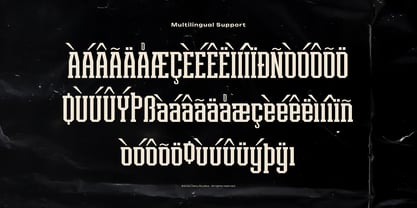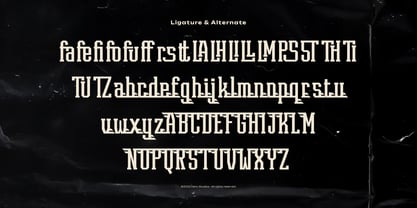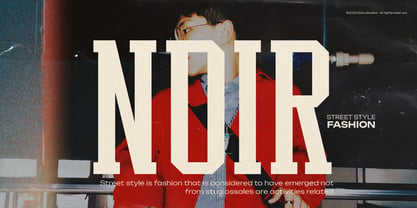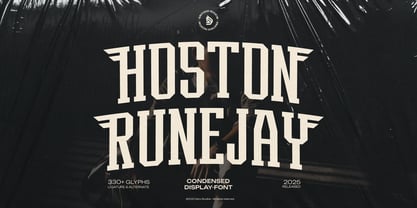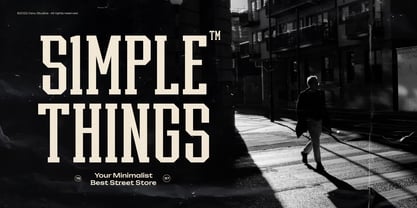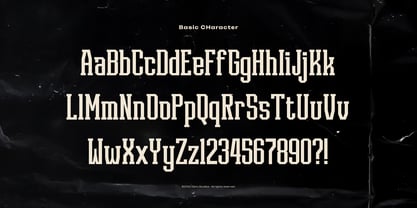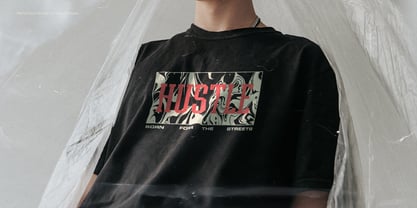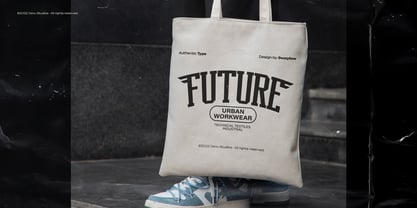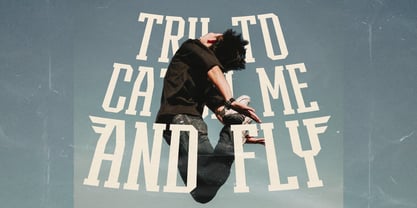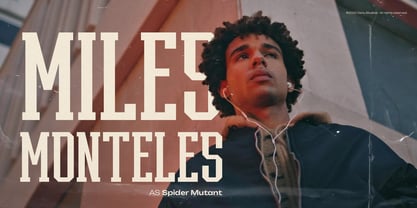
Hoston Runejay
by Denustudio
The Hoston Runejay Font Family was designed by Dede Nugraha and published by Denustudio. Hoston Runejay contains 2 styles and family package options. More about this family
Hoston Runejay | Condensed Display Font, from Denustudios, suitable for any projects such as: logos, branding projects, homeware designs, product packaging, mugs, quotes, posters, shopping bags, t-shirts, book covers, name card, invitation cards, greeting cards, label, photography, watermark, special events, and all your other lovely projects that need Condensed Display Font a taste.
• Regular and Italic
• Standard glyphs
• Alternate and Ligature
• Fonts include multilingual support
Designers: Dede Nugraha
Foundry: Denustudio